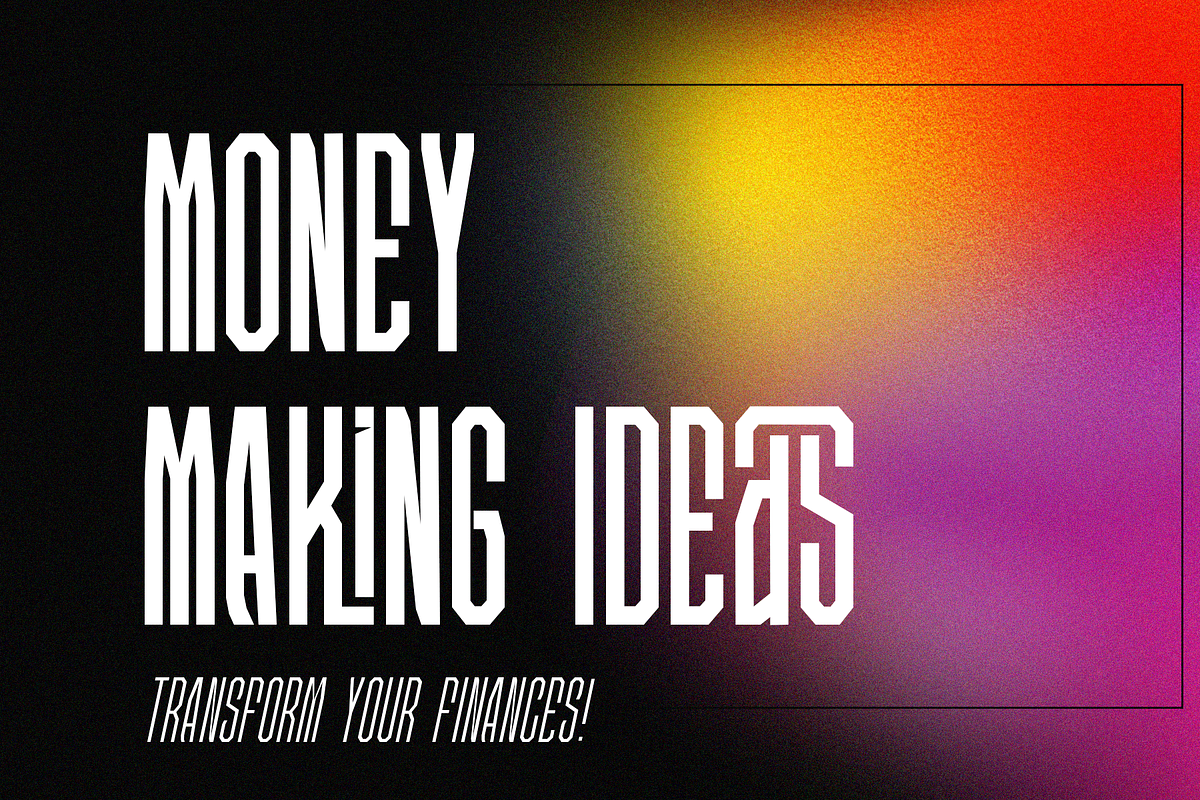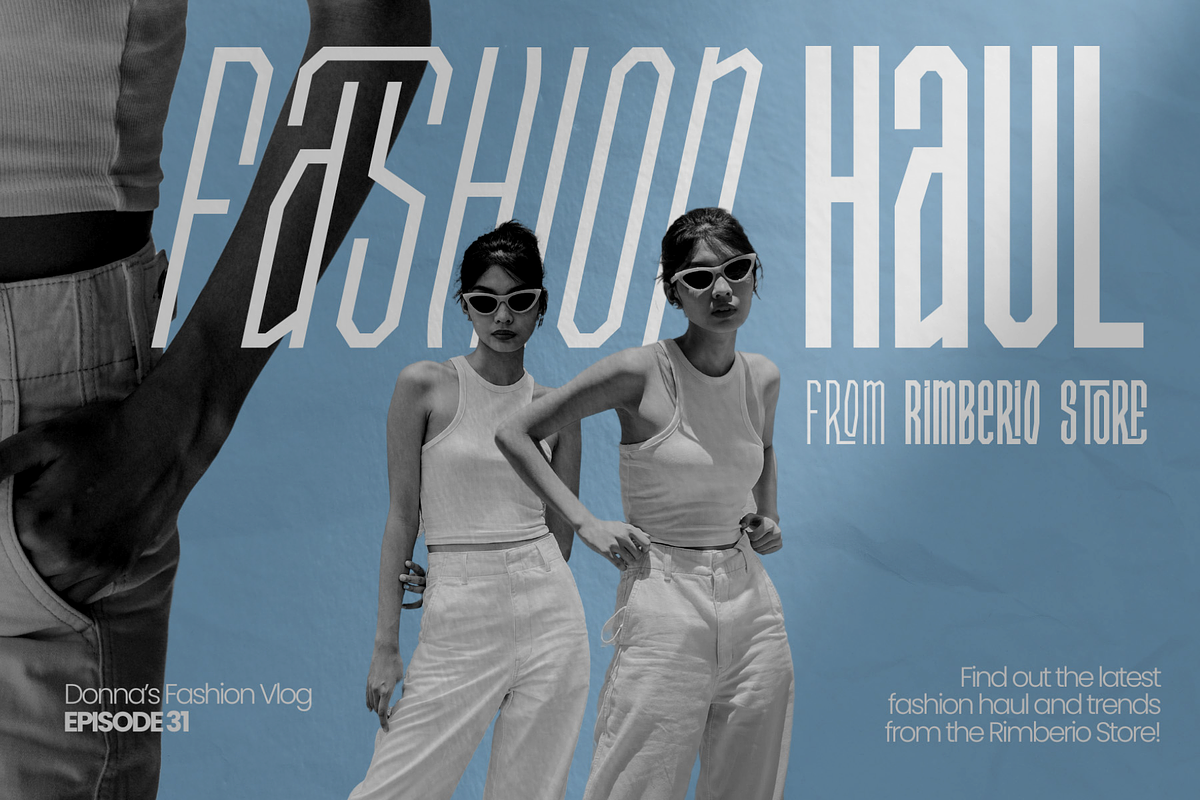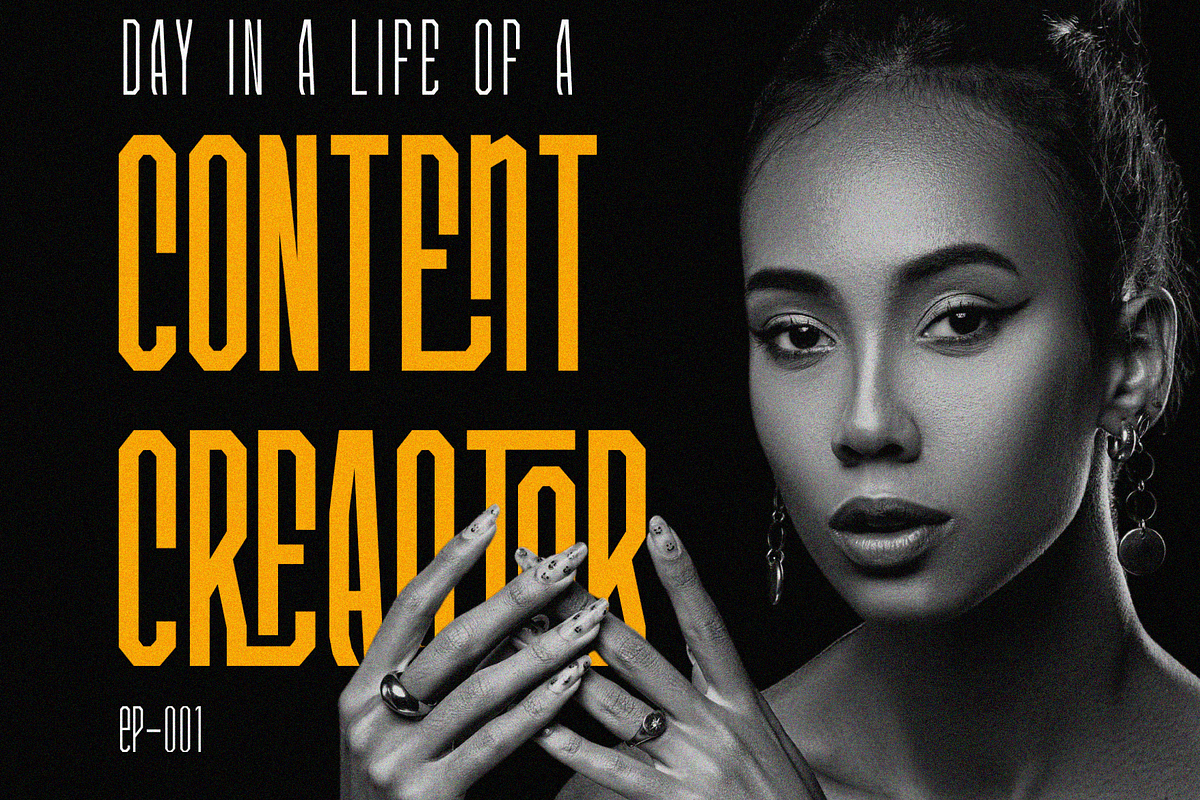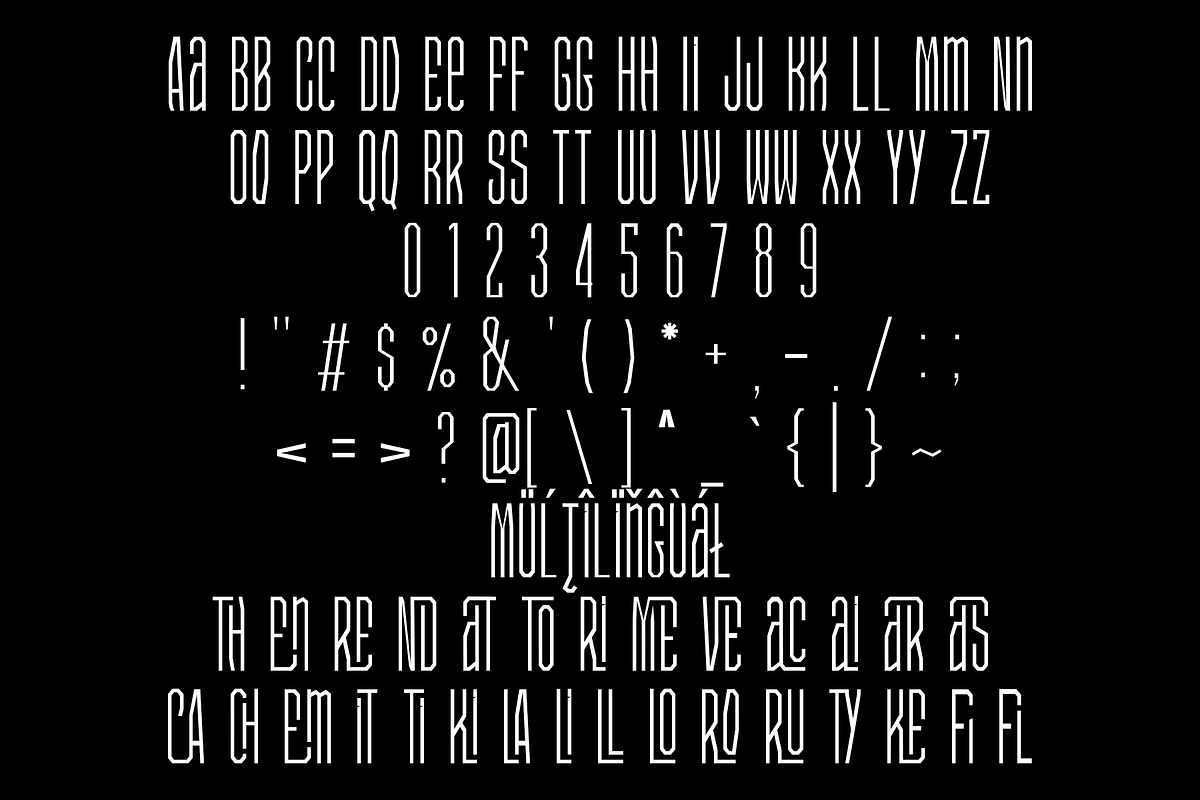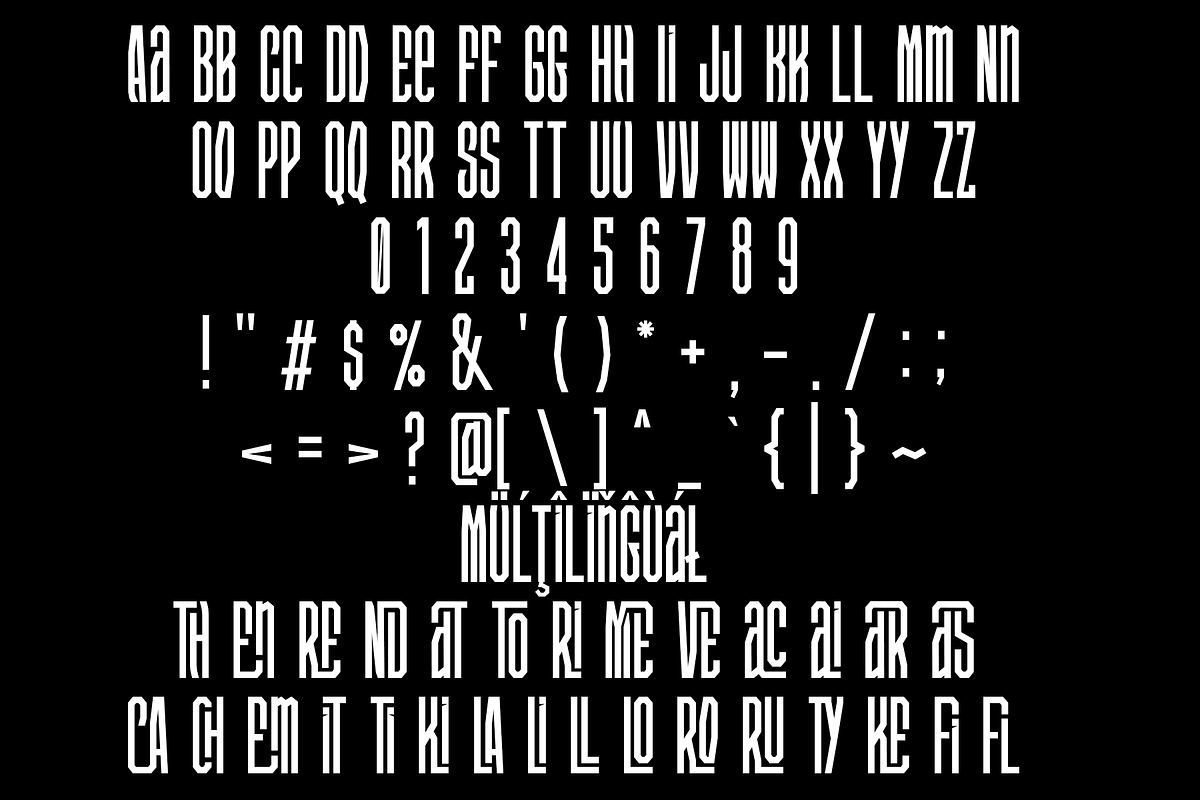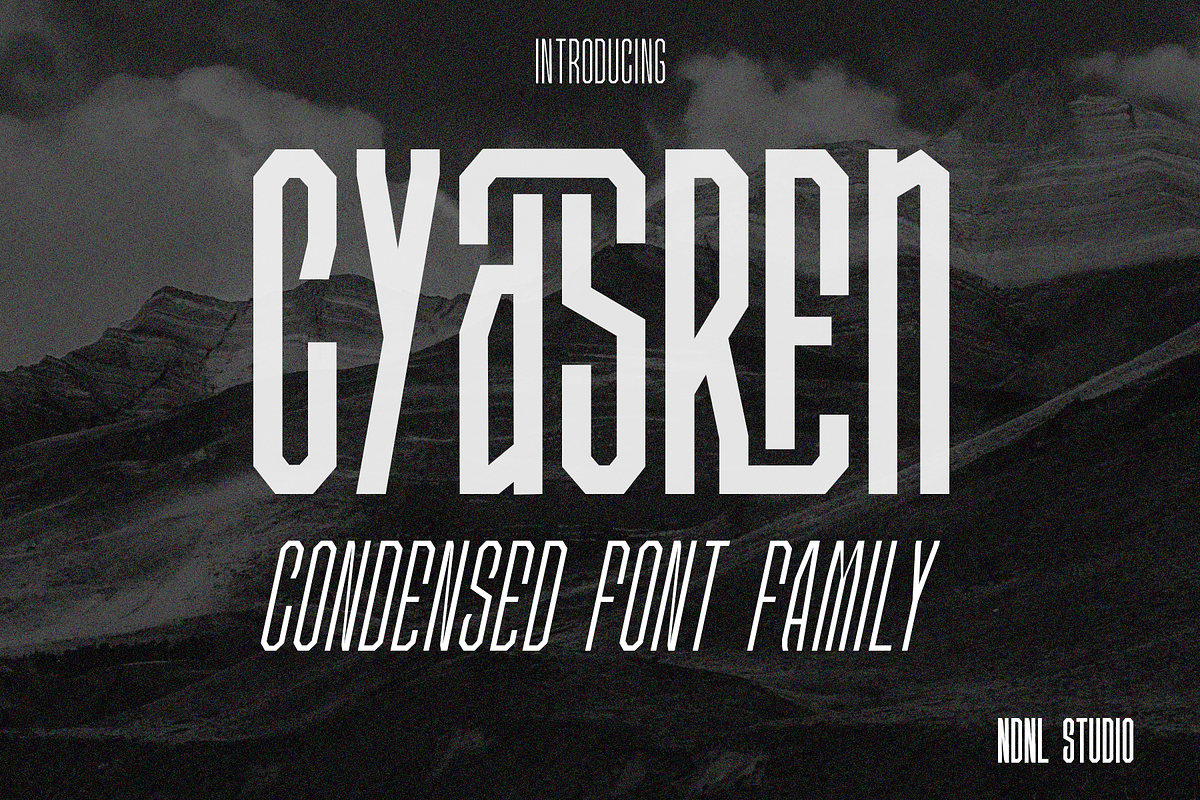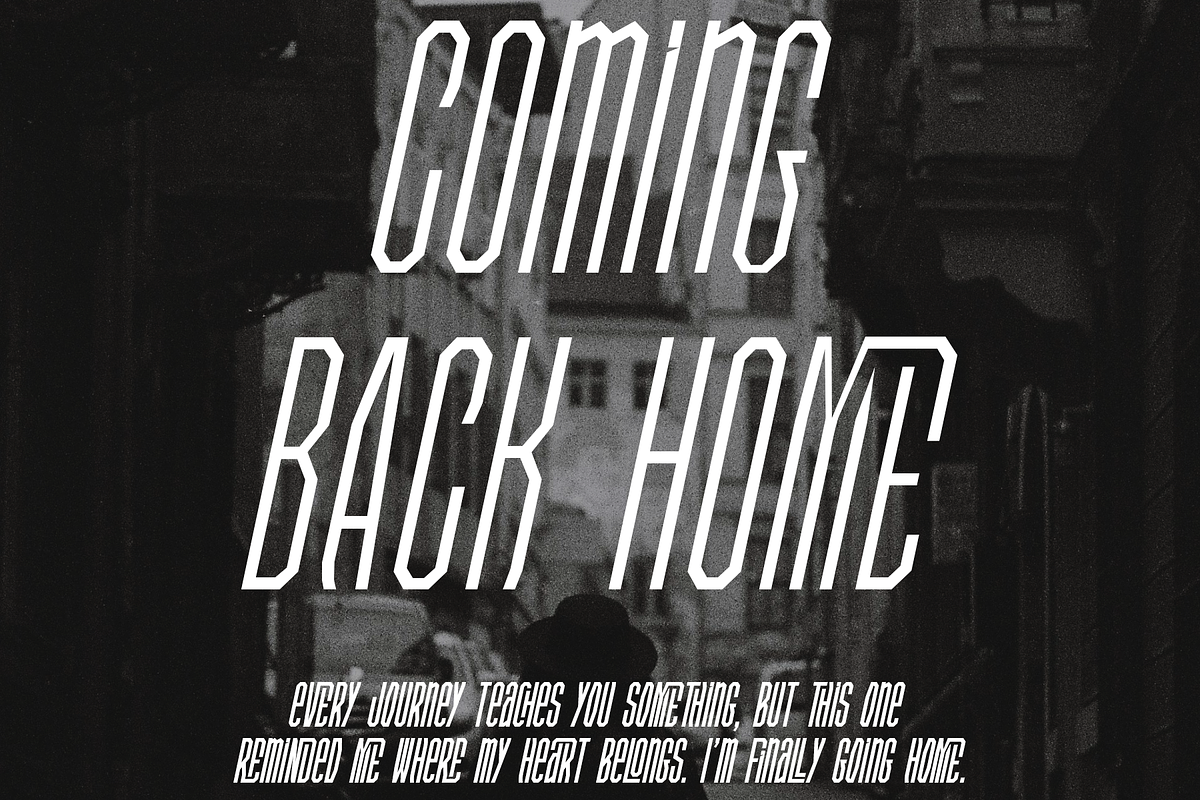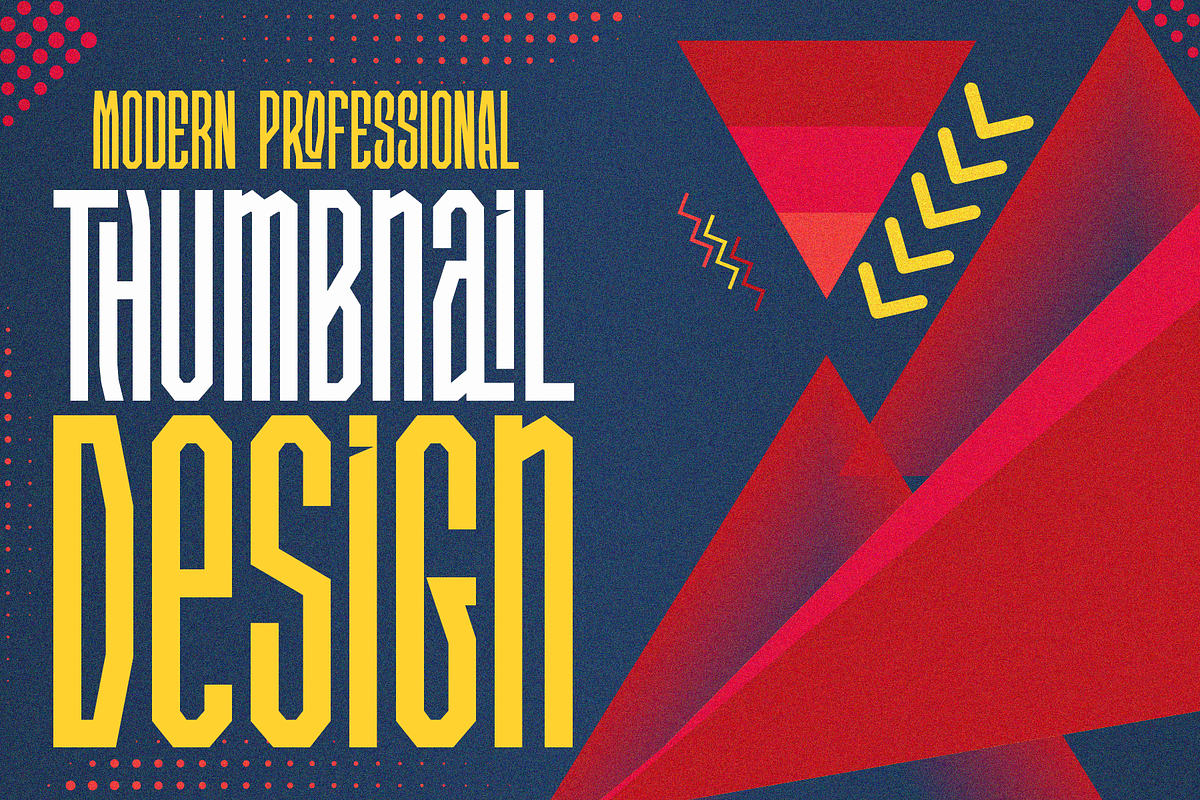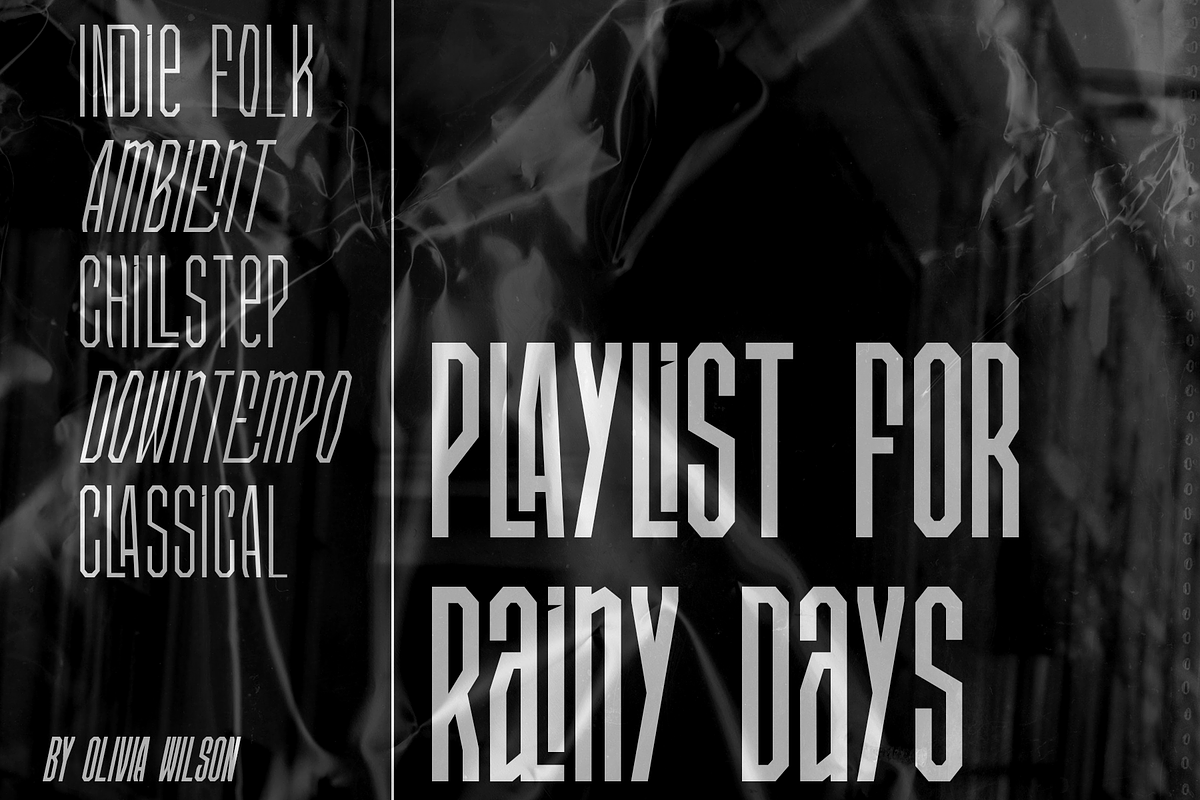
Cyasren – Condensed Font Family
Cyasren is a bold condensed typeface that embodies a modern and distinctive aesthetic. With its narrow structure, sharp edges, and strong geometric presence, Cyasren delivers a striking and dynamic visual impact.
Perfect for headlines, posters, sports branding, fashion design, and futuristic or industrial-themed projects, Cyasren maximizes space while maintaining strong readability and identity. It’s designed to make your message stand out with confidence and style.